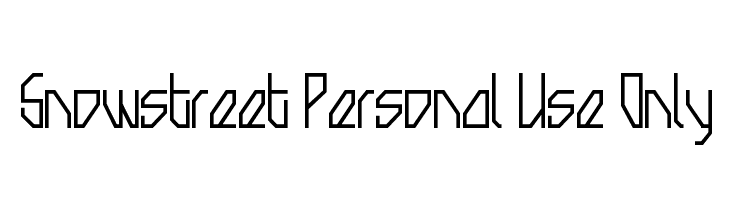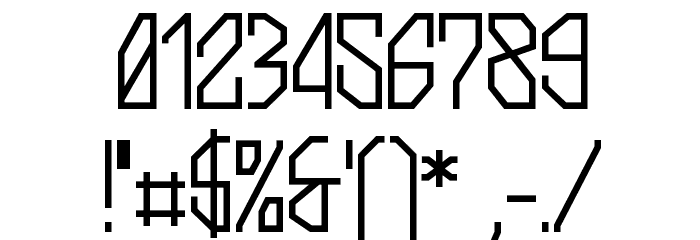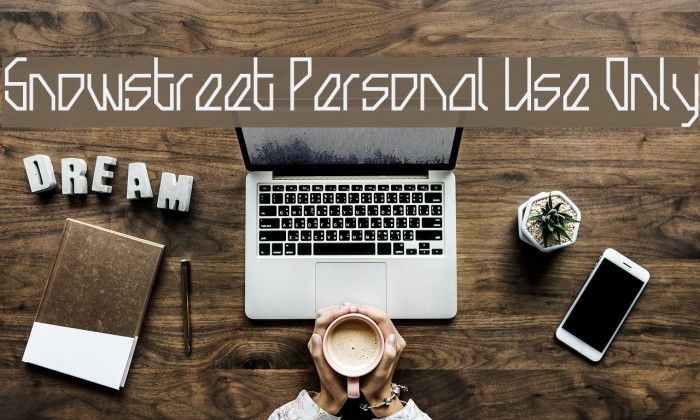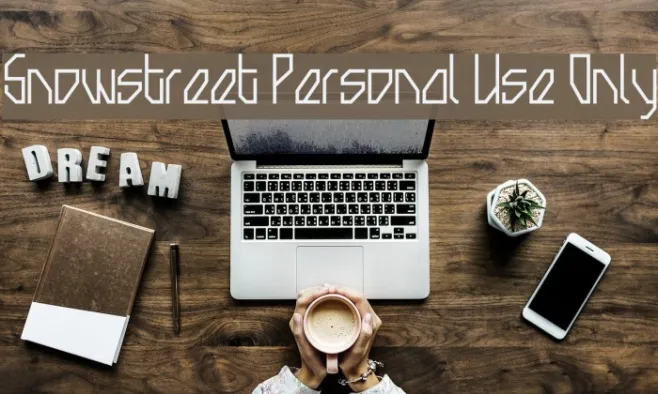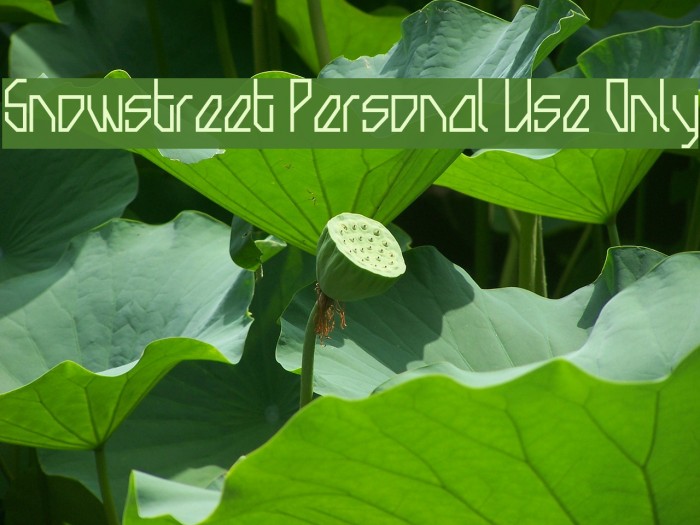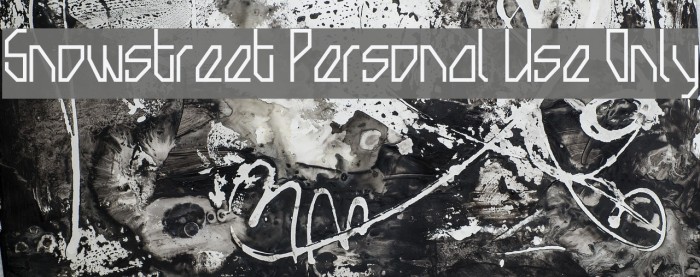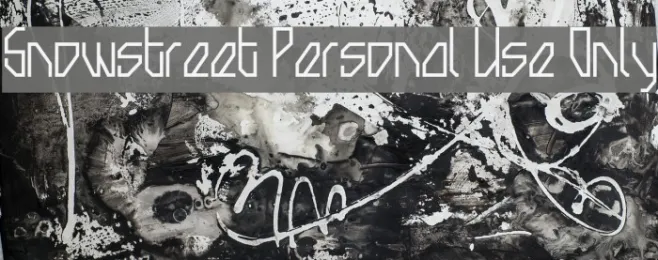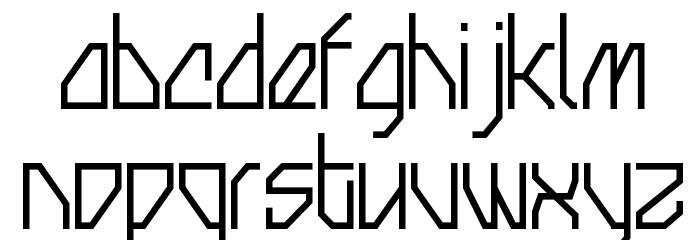
Snowstreet Personal Use Only Font
Snowstreet Personal Use Only Description
This font features a geometric and angular design, characterized by sharp edges and a futuristic aesthetic. The uppercase and lowercase letters maintain a consistent style, with straight lines and pointed corners that give it a distinctive, edgy look. The numerals and special characters follow the same design principles, ensuring uniformity across all glyphs. The font's unique style makes it stand out, offering a modern and bold appearance that is both eye-catching and versatile.
CategoriesFuturistic
WidthNormal
Character SpacingMonospaced
ContrastLow
Overall StyleModern
Use CaseHeadlines, Logos, Posters
Proposed ProjectsIdeal for sci-fi themed projects, modern branding, tech-related designs, and innovative product packaging.